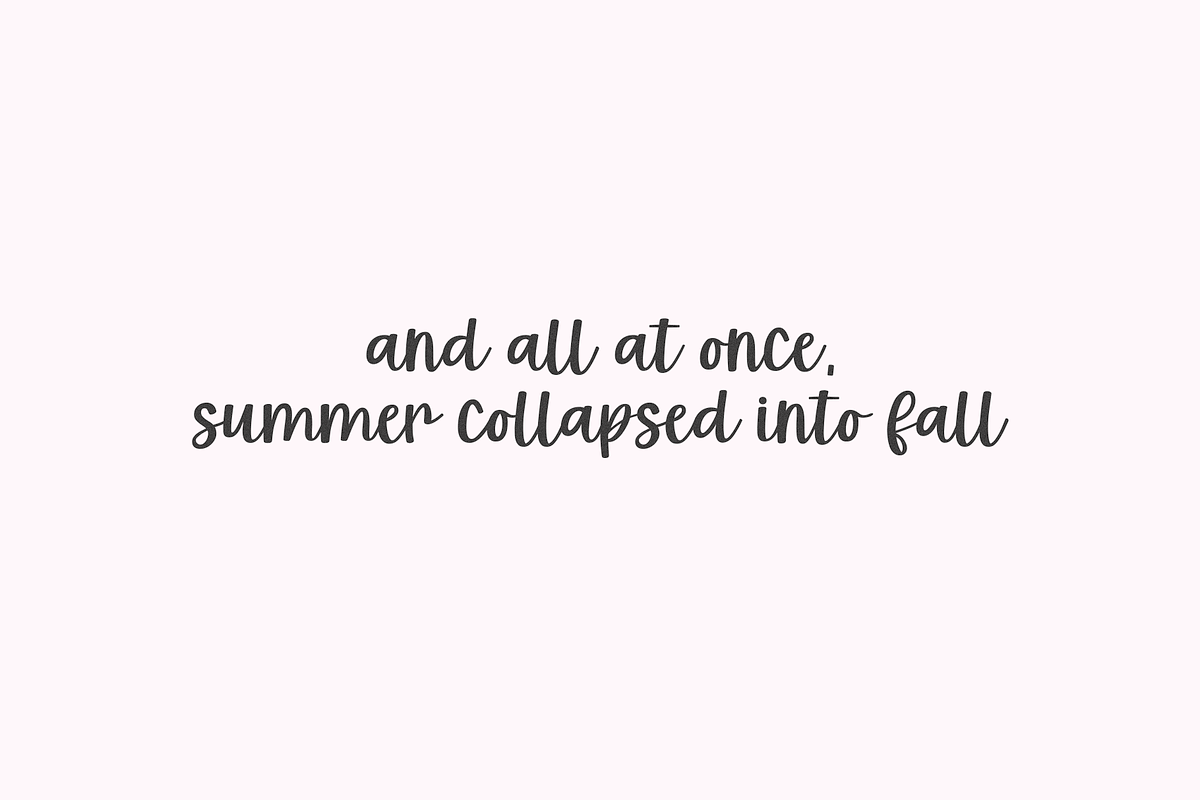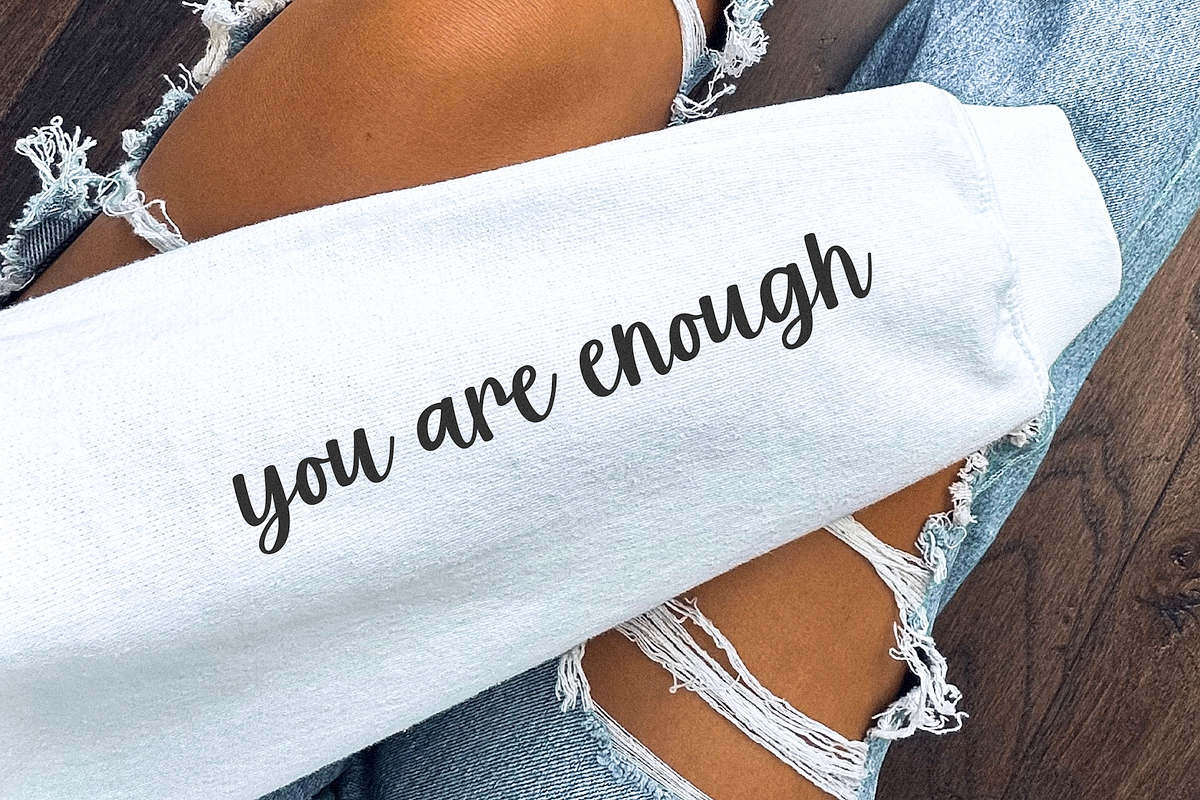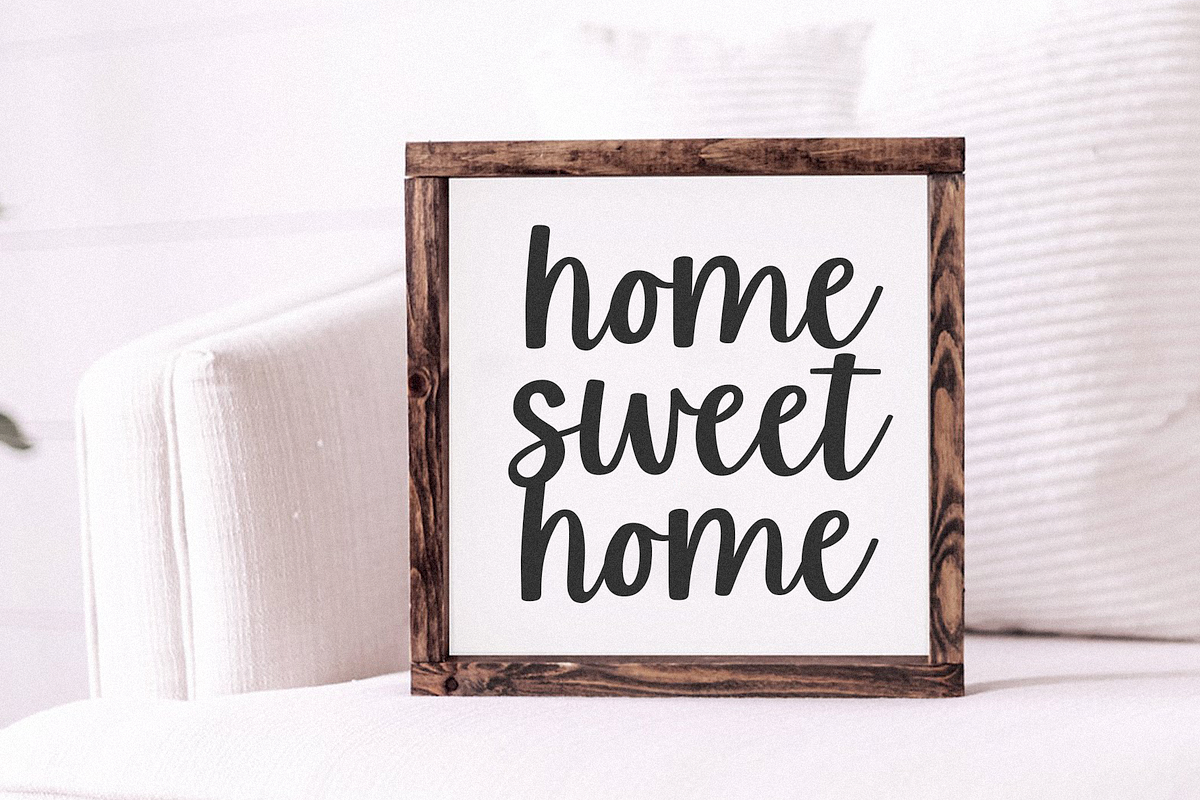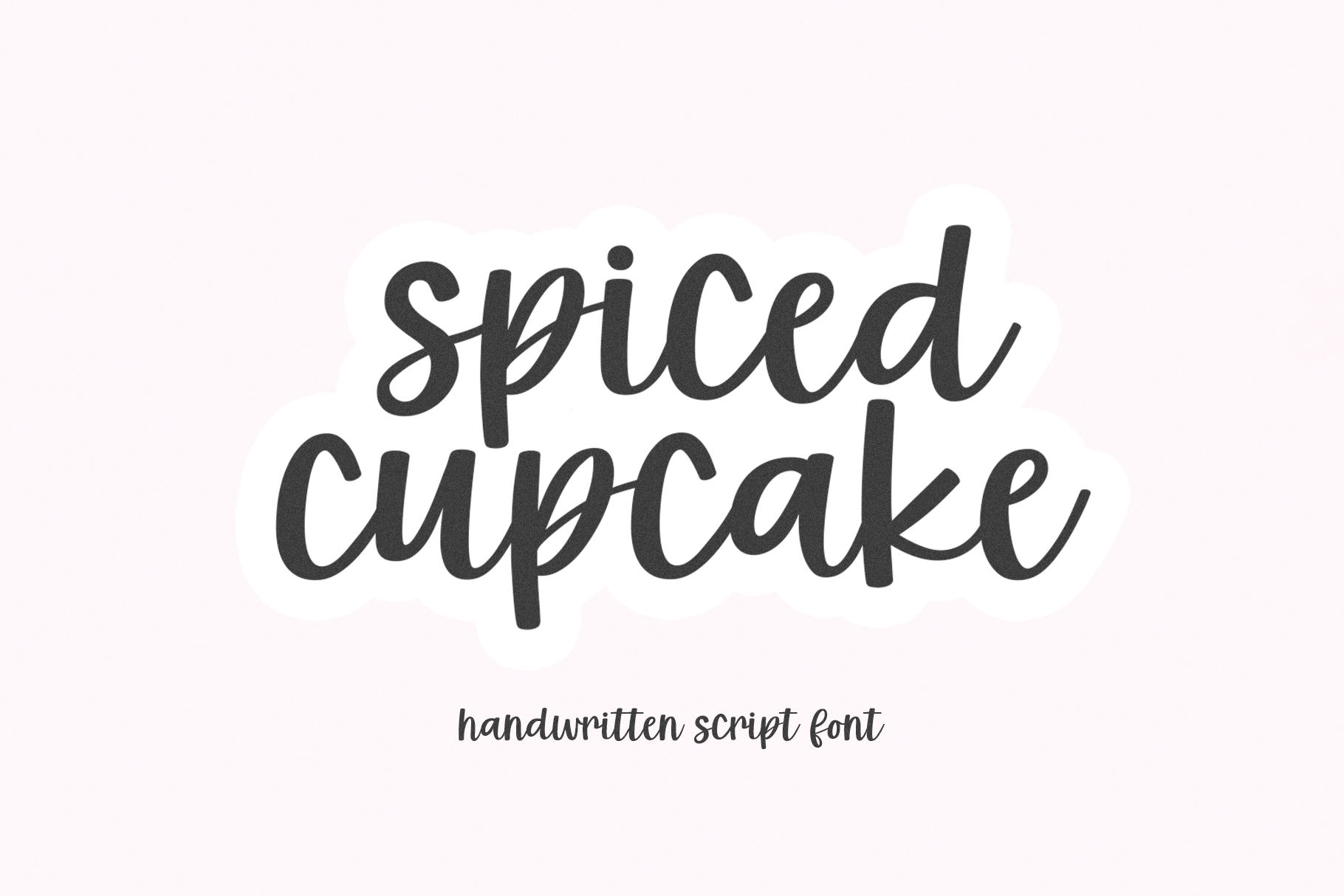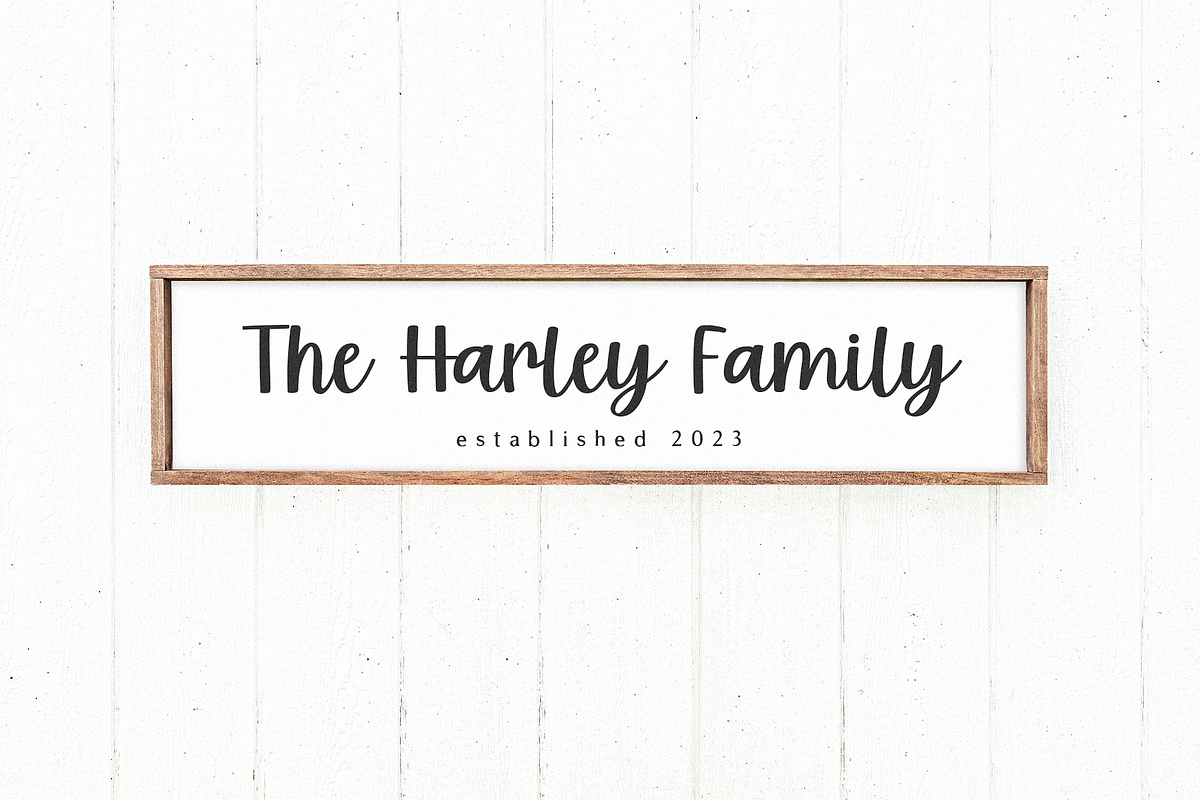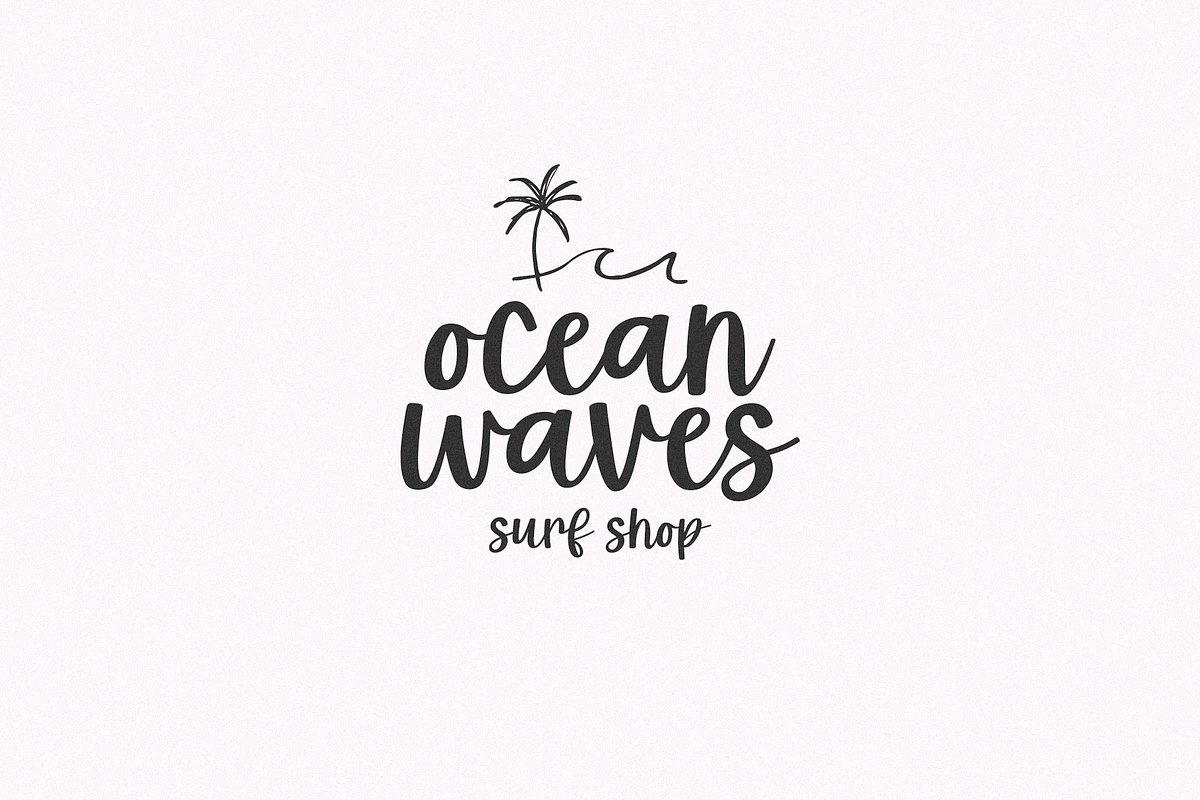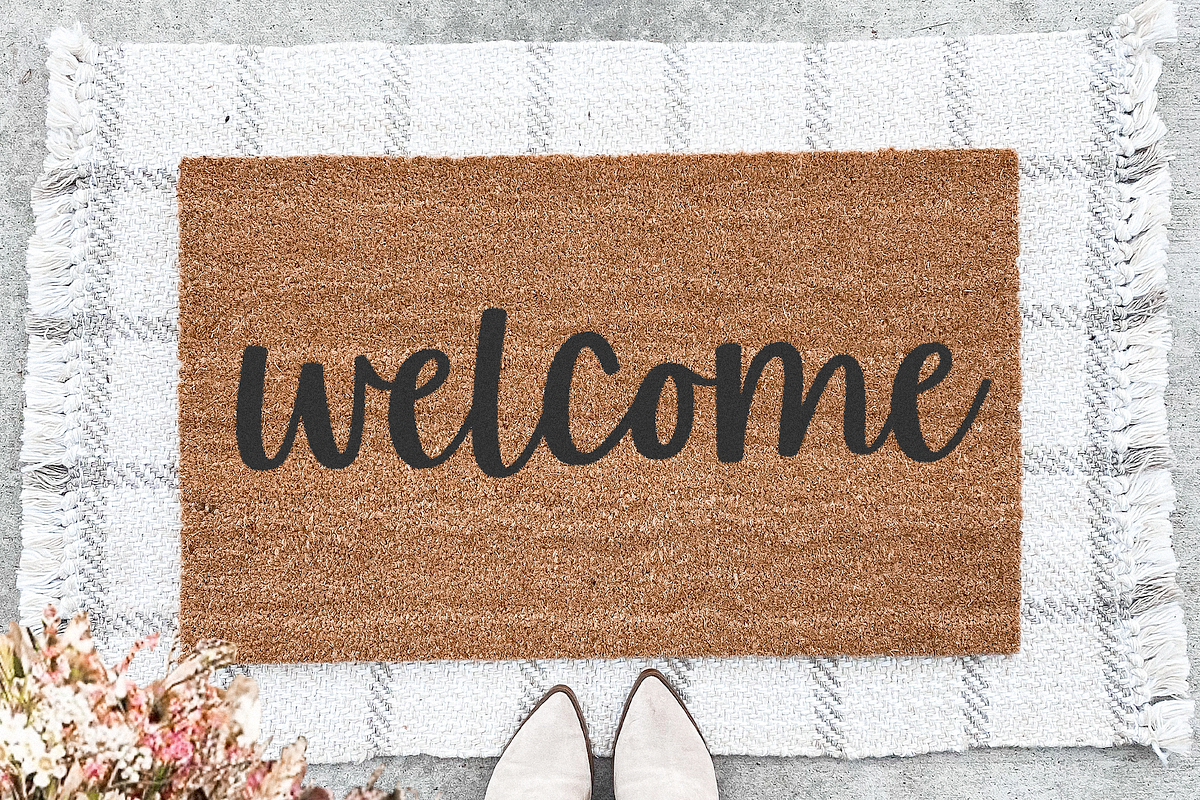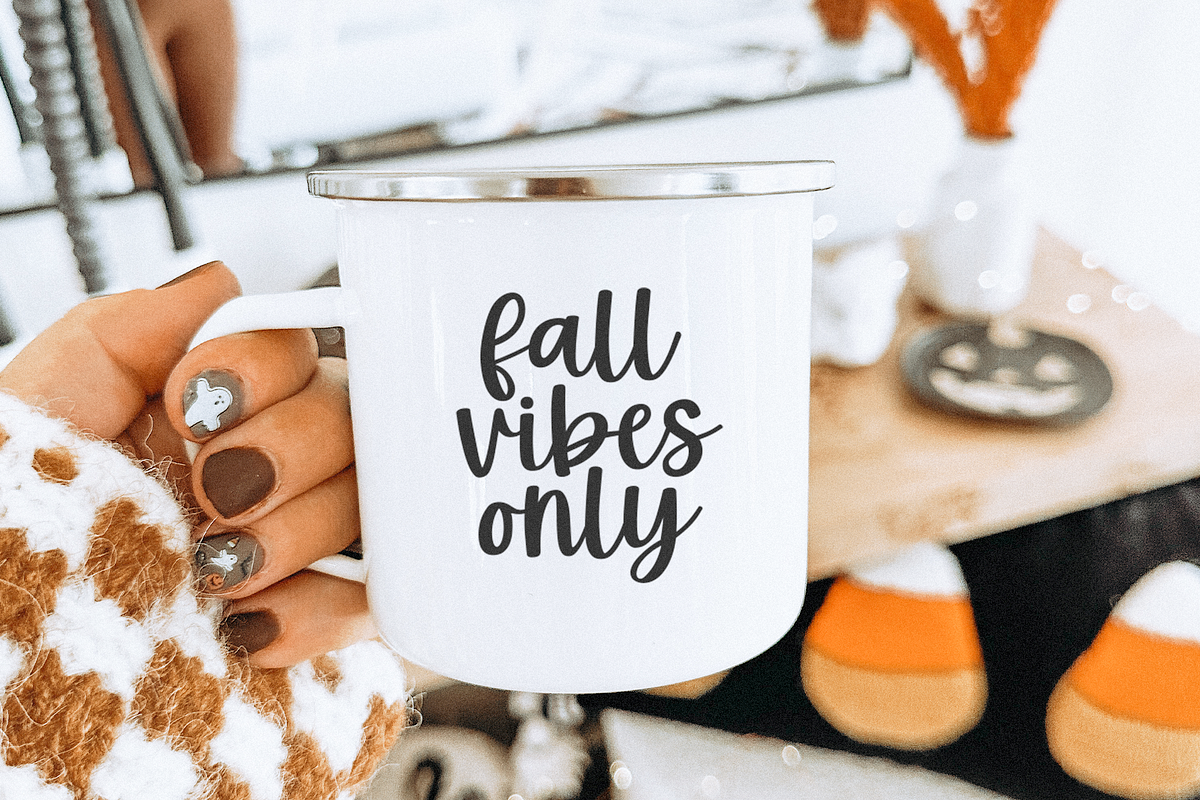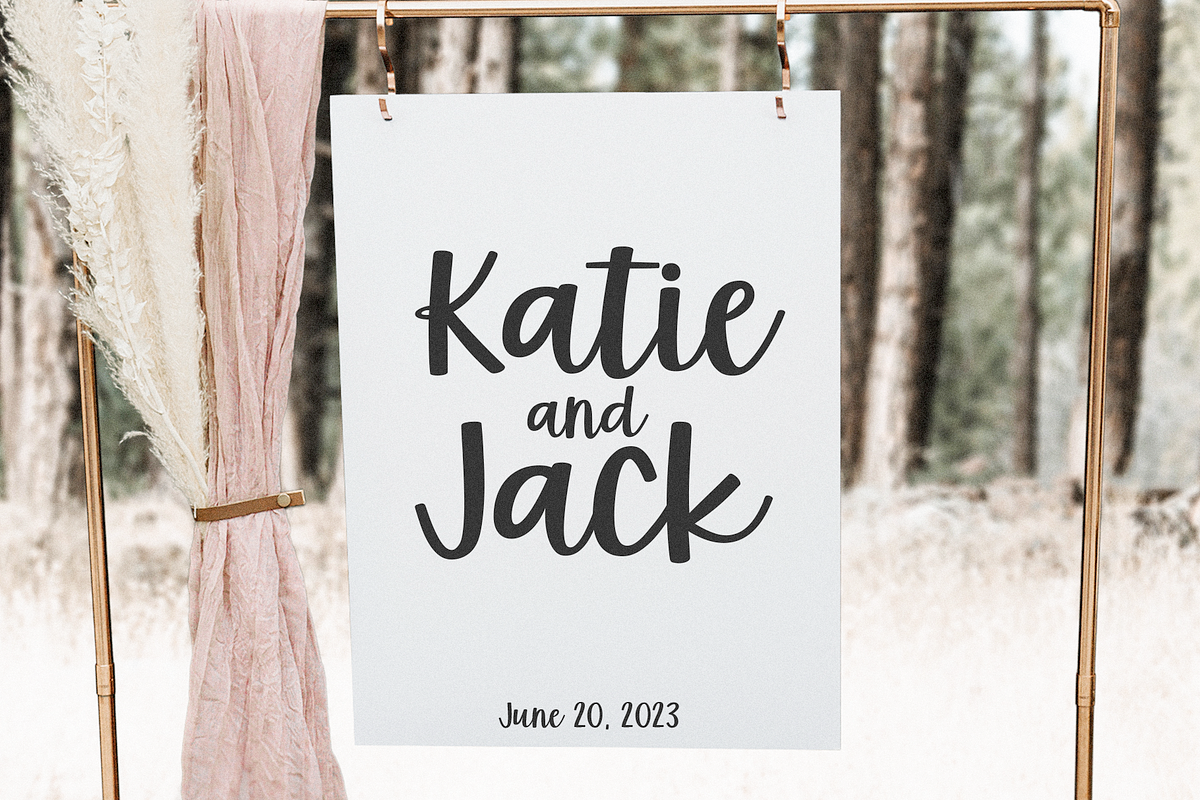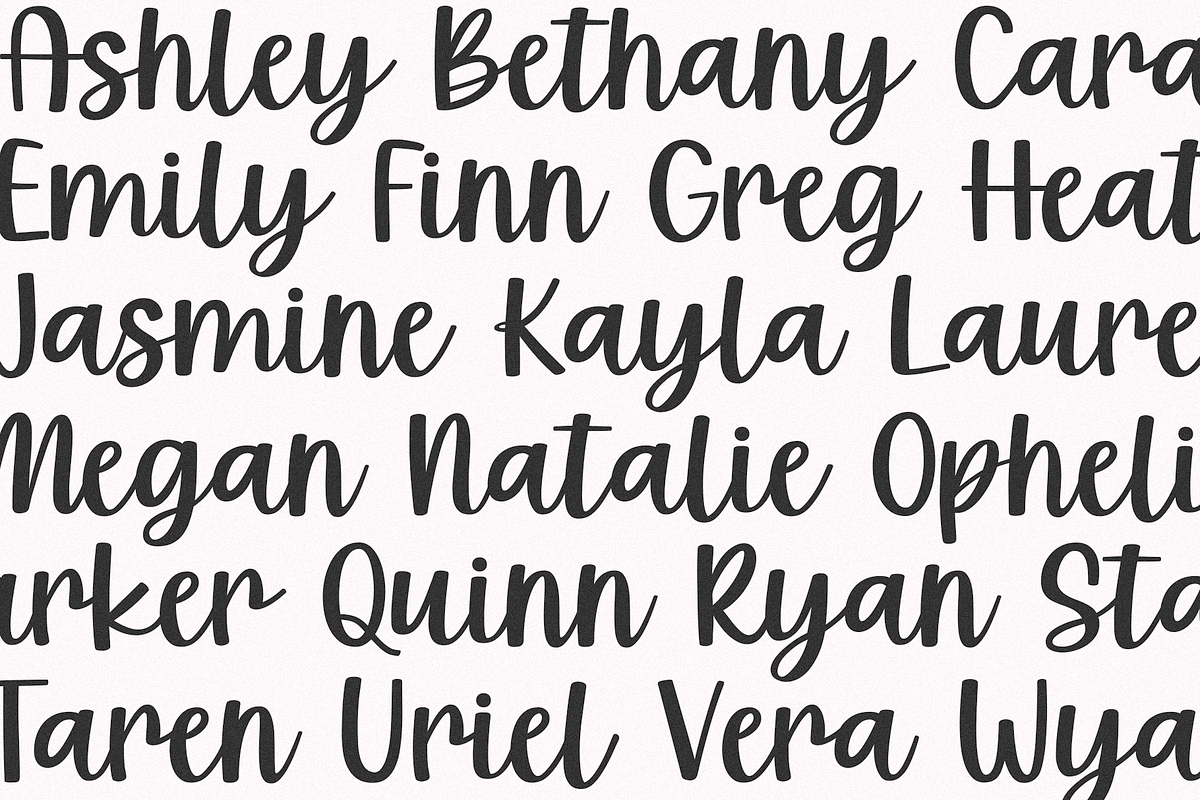
Spiced Cupcake | Modern Script Font
Spiced Cupcake is a modern script font.
This font is perfect for farmhouse designs, svg designs, wedding decor, shirts, logos, mugs and more!